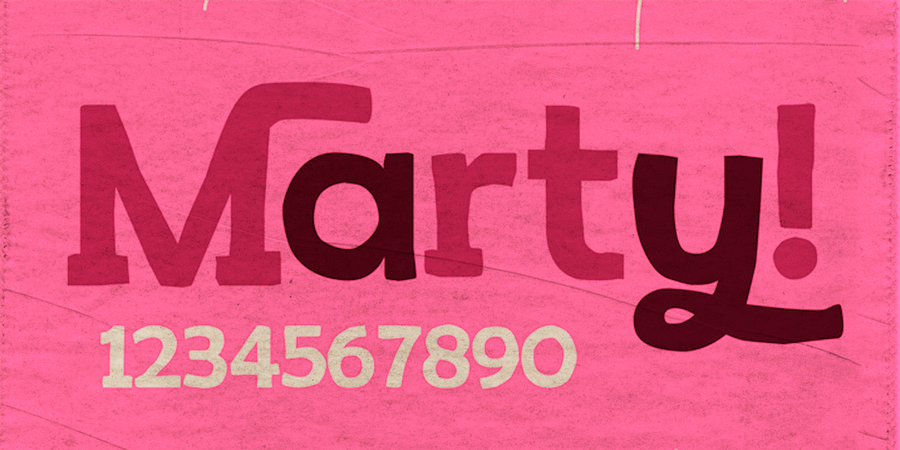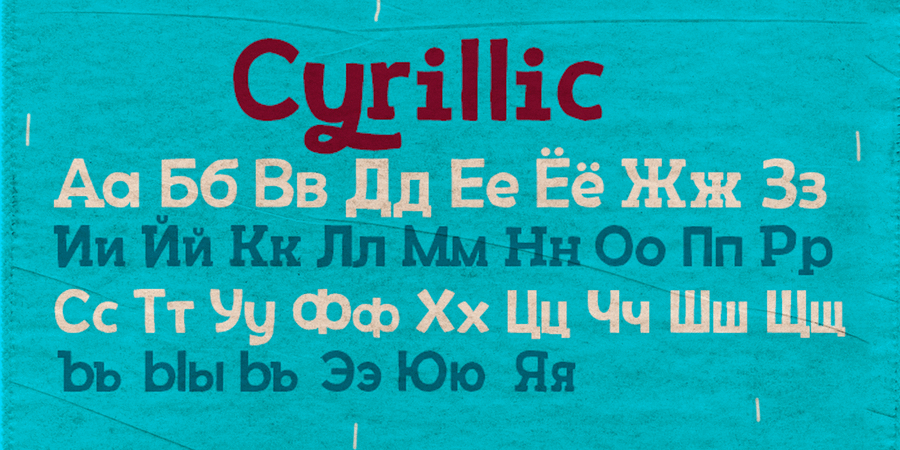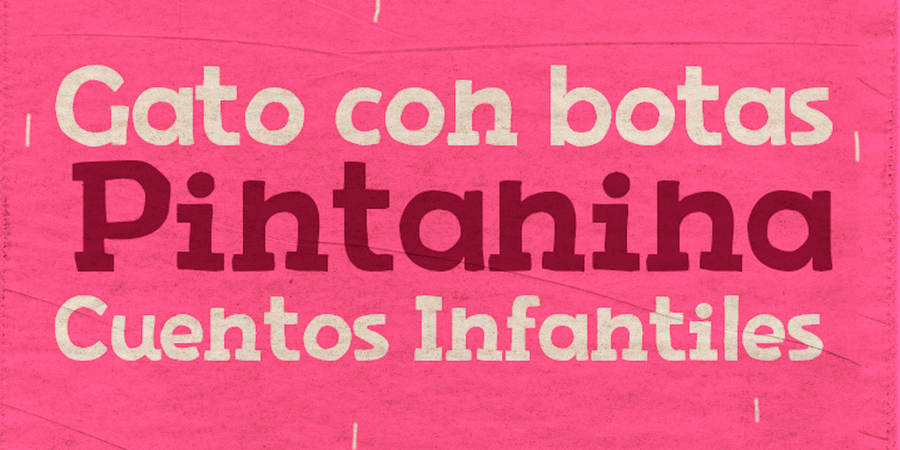
Paragraph font pair with Stolzl Text Book (1 of 5)About MartyMarty is an informal hand-drawn slab serif typeface with a playful boyish mood. He supports many European languages, as well as Cyrillic. This font has rich possibilities in the form of alternative glyphs, swashes and rare ligatures. It was designed by Rodrigo Arai Salas in 2014.
Hit of 1990s Marty supports 83 languagesUkrainian, English, German, Polish, Portuguese, Spanish, French, Russian, Czech, Dutch, Italian, Swedish, Turkish, Finnish, Belarusian, Serbian, Bulgarian, Estonian, Lithuanian, Albanian, Afrikaans, Basque, Breton, Valencian, Galician, Gaelic (Scottish), Danish, Indonesian, Irish, Icelandic (Win), Karakalpak, Catalan, Norwegian, Occitan, Rhaeto-Romance, Sami Lule, Tswansky, Uzbek (Lat.), Faroese, Frisian, Chamorro, Estonian (Win), South Sami, Albanian (Win), Hungarian, Upper leprechauny, Karelian, Latvian (Mac), Lithuanian (Mac), Maori (Mac), Moldovan (Lat.), Lower Sorbian, Romanian (Win), Slovak, Slovenian, Turkmen (Lat.), Croatian (Win), Estonian (Mac), Kurdish, Latvian, Maori, Romanian, Abazin, Avar, Agul, Adyghe, Darginsky, Ingush, Kabardino-Circassian, Kabardian, Karachay-Balkar, Kumyk, Lak, Lezghian, Macedonian, Mordovian-Moksha, Mordovian-Erzya, Nogai, Rutulian, Tabasaran, Tatar, Tsakhur, Chechen Functions of font family MartyTypeface use in layout:
street, urban, craft brewed, informal, cartoonish, manual, man-made, handicraft, home-made, alive, lamp, notable, expressive, slovenly, funny, ironic, robust, healthy, peppy, strong, rustic, old-fashioned, cowboy, macho, farmer, cheerful, friendly, good-natured, kind, playful, agile, fresh, ripe, delicious, heavy, children, naive, cute, witty, summer, happy, rude, original, distinctive, uncouth, uneven, idle, walking, spoiled, angular, round, generous, interesting, wooden, rectangular, square, student, party, cool, creative, nice, Artisanal, careless, vernacular, game, boyish, nervous
country house, handmade, recreation, nature, animation, Cartoon, snack, fast food, retail, shop, school, diary, city, graffiti, store, game, clothes, footwear, food, meat, farm, jeans, ranch, inn, cowboy, dinner, burger, stationery, breakfast, humor, camp, activities circle, pencils, toy, children's book, coloring, spice, notebook, constructor, adventures, cubes, entertainment, party, holiday, lego, graphics, illustration, pupil, schoolboy, morning Typeface associated with age: